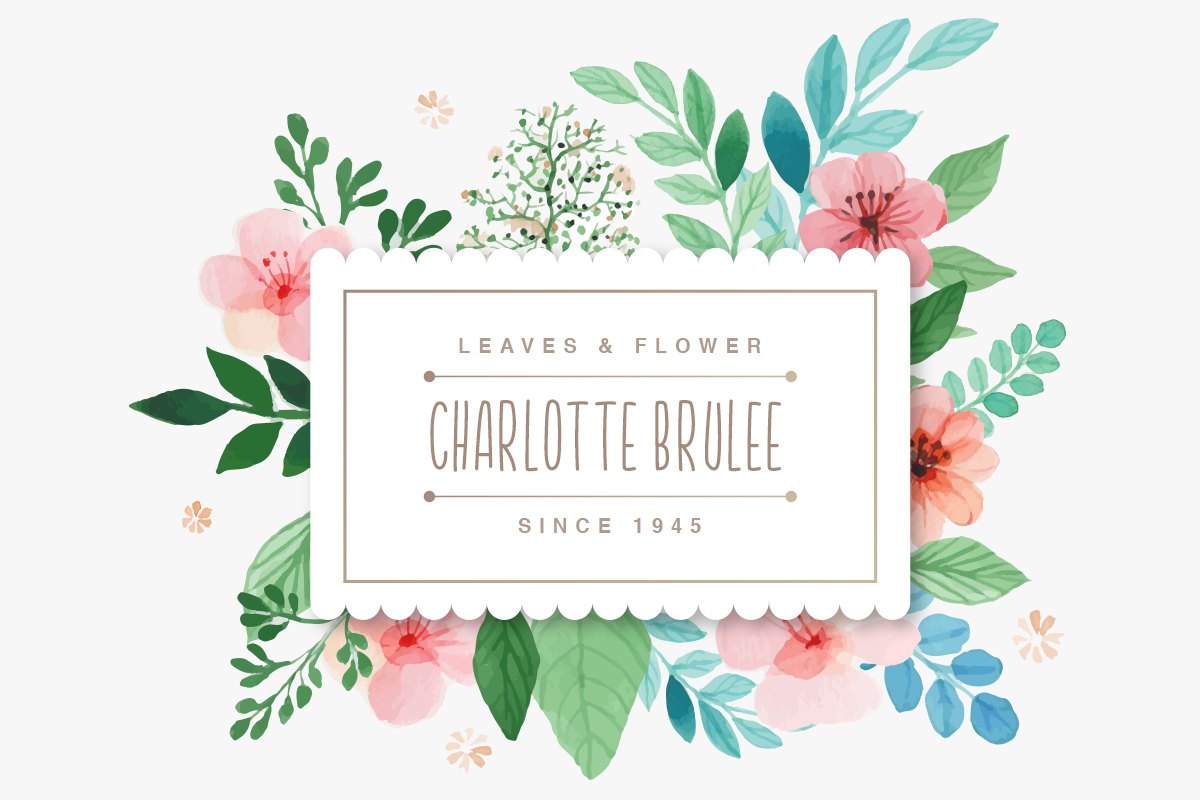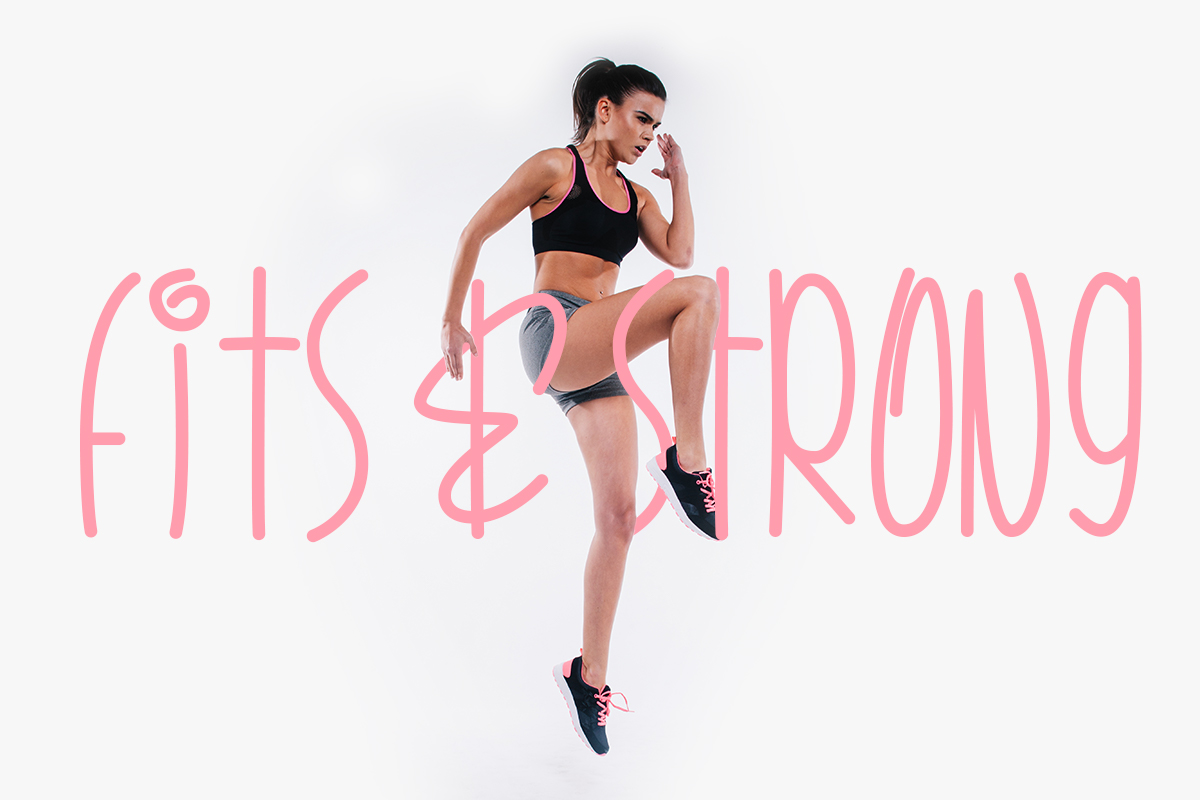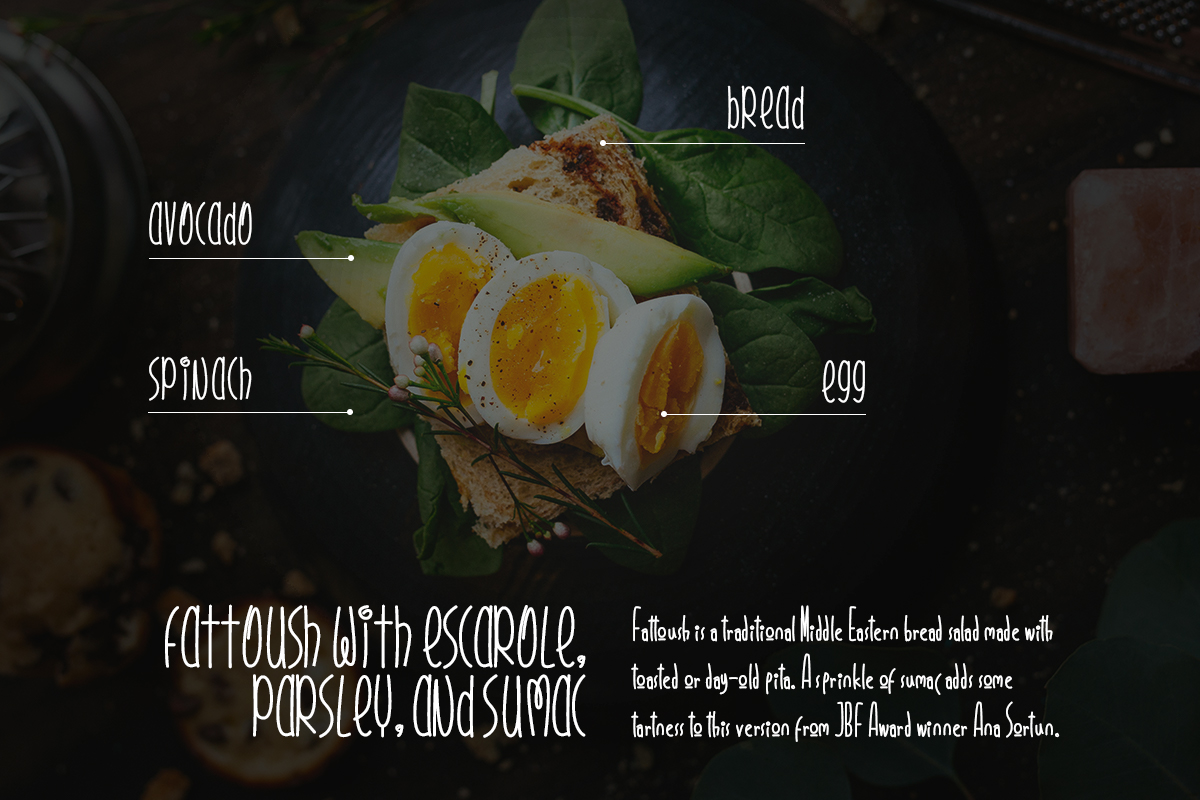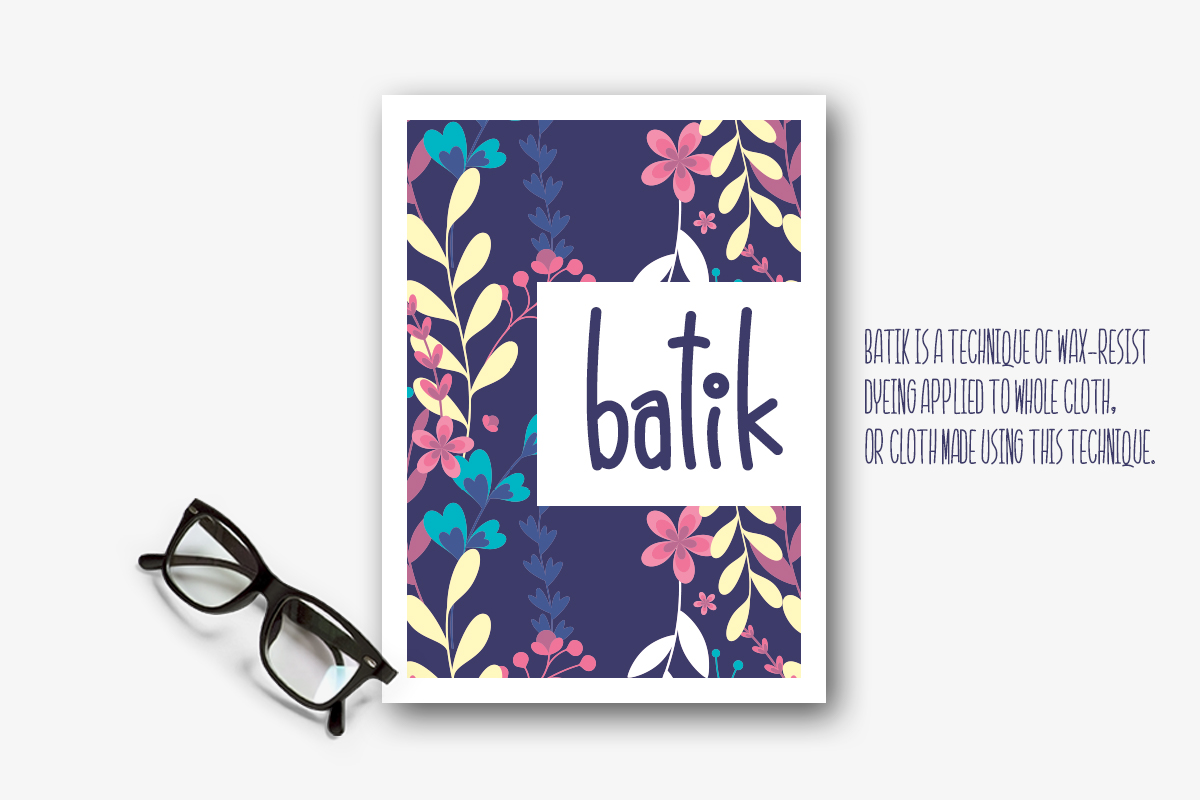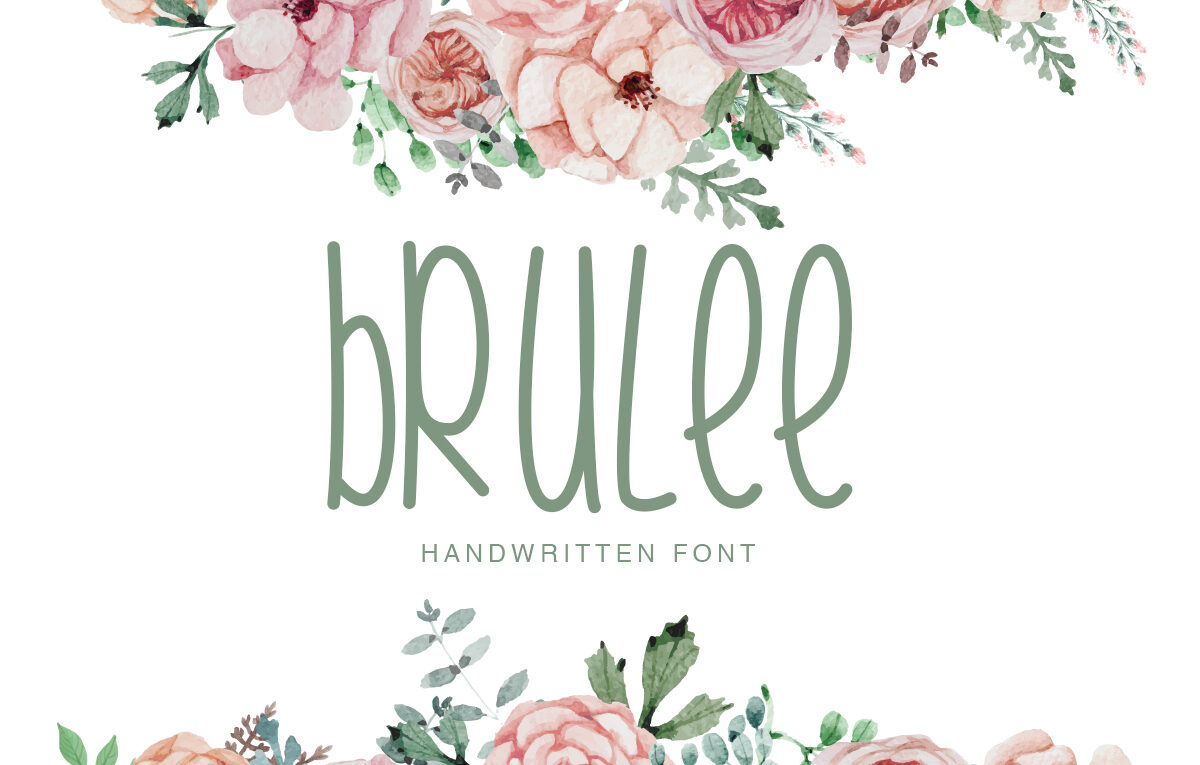
Brulee Font: The Ultimate Display Font Duo for Stunning Text
Are you tired of using the same old fonts for your designs? Look no further! Brulee is a fun, display font duo that is sure to take your text to the next level. Every letter has been carefully crafted to make your text look stunning, making it perfect for designers and crafters alike.
What is Brulee Font?
Brulee is a unique and creative font duo that consists of two complementary fonts. The fonts are designed to work together seamlessly, creating a cohesive and visually appealing look. With its bold and playful style, Brulee is perfect for adding a touch of personality to your designs.
Key Features of Brulee Font
• Carefully crafted letters: Every letter in the Brulee font has been meticulously designed to ensure that your text looks stunning and eye-catching.
• Fun and playful style: Brulee has a bold and playful style that is sure to add a touch of personality to your designs.
• Display font duo: Brulee consists of two complementary fonts that work together seamlessly to create a cohesive look.
• Perfect for designers and crafters: Brulee is ideal for designers and crafters who want to add a unique touch to their designs.
Uses of Brulee Font
Brulee font can be used in a variety of ways, including:
• Logos and branding: Brulee’s bold and playful style makes it perfect for creating unique logos and branding materials.
• Social media graphics: Add a touch of personality to your social media graphics with Brulee’s fun and eye-catching style.
• Invitations and cards: Brulee is perfect for creating stunning invitations and cards for special occasions.
• Signs and posters: Brulee’s bold style makes it ideal for creating eye-catching signs and posters.
Benefits of Using Brulee Font
Using Brulee font has several benefits, including:
• Unique and creative look: Brulee’s bold and playful style is sure to make your text stand out from the crowd.
• Easy to read: Despite its bold style, Brulee is easy to read, making it perfect for use in a variety of contexts.
• Versatile: Brulee can be used in a variety of ways, from logos and branding to social media graphics and invitations.
Tips for Using Brulee Font
Here are some tips for using Brulee font:
• Use it sparingly: Brulee’s bold style can be overwhelming if used excessively. Use it sparingly to add a touch of personality to your designs.
• Experiment with different colors: Brulee looks great in a variety of colors. Experiment with different colors to find the one that works best for your design.
• Pair it with other fonts: Brulee can be paired with other fonts to create a unique and creative look.
Brulee font is a fun and creative display font duo that is sure to take your text to the next level. With its bold and playful style, Brulee is perfect for designers and crafters who want to add a unique touch to their designs. Whether you’re creating logos and branding materials, social media graphics, or invitations and cards, Brulee is the perfect choice.